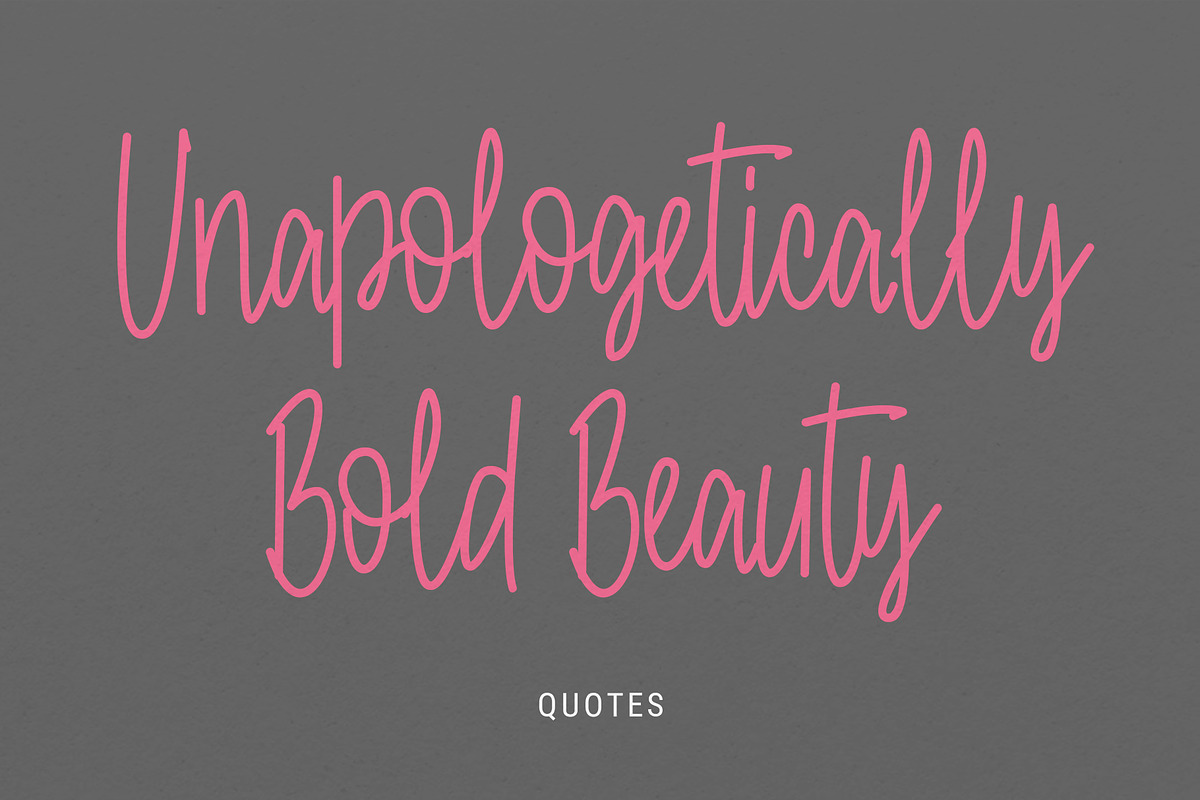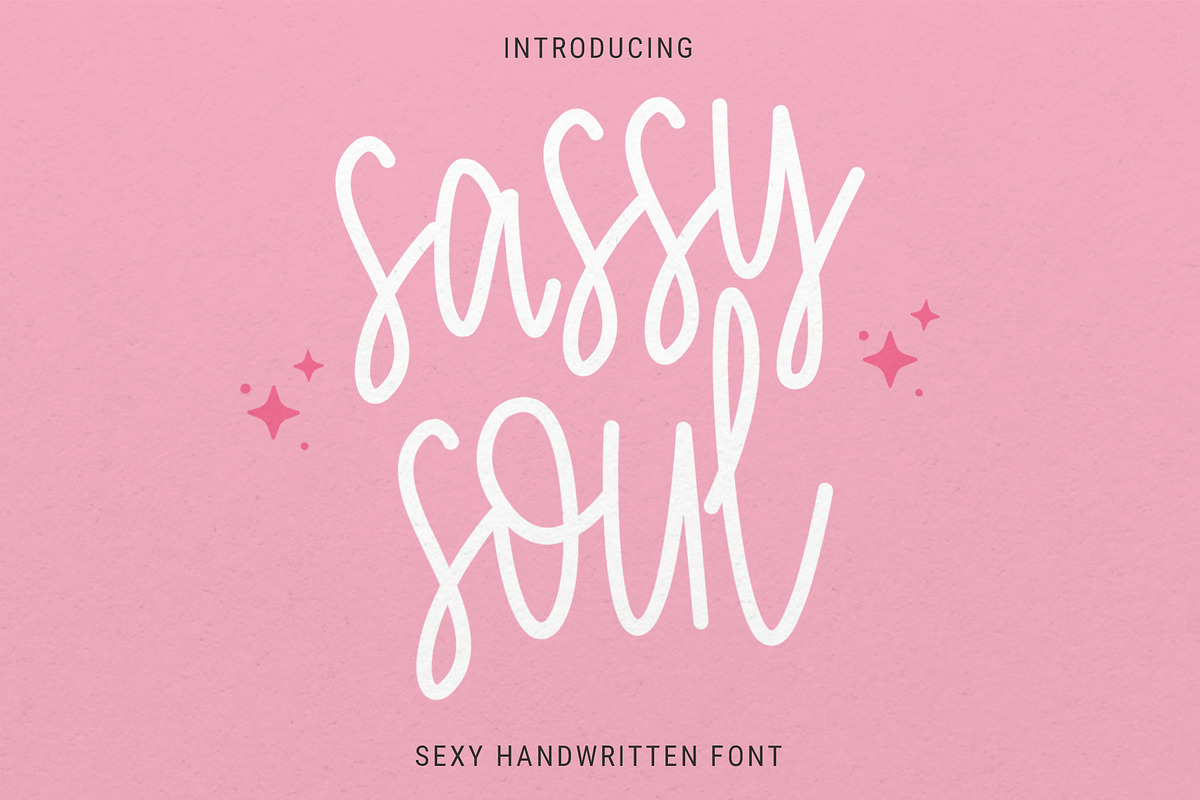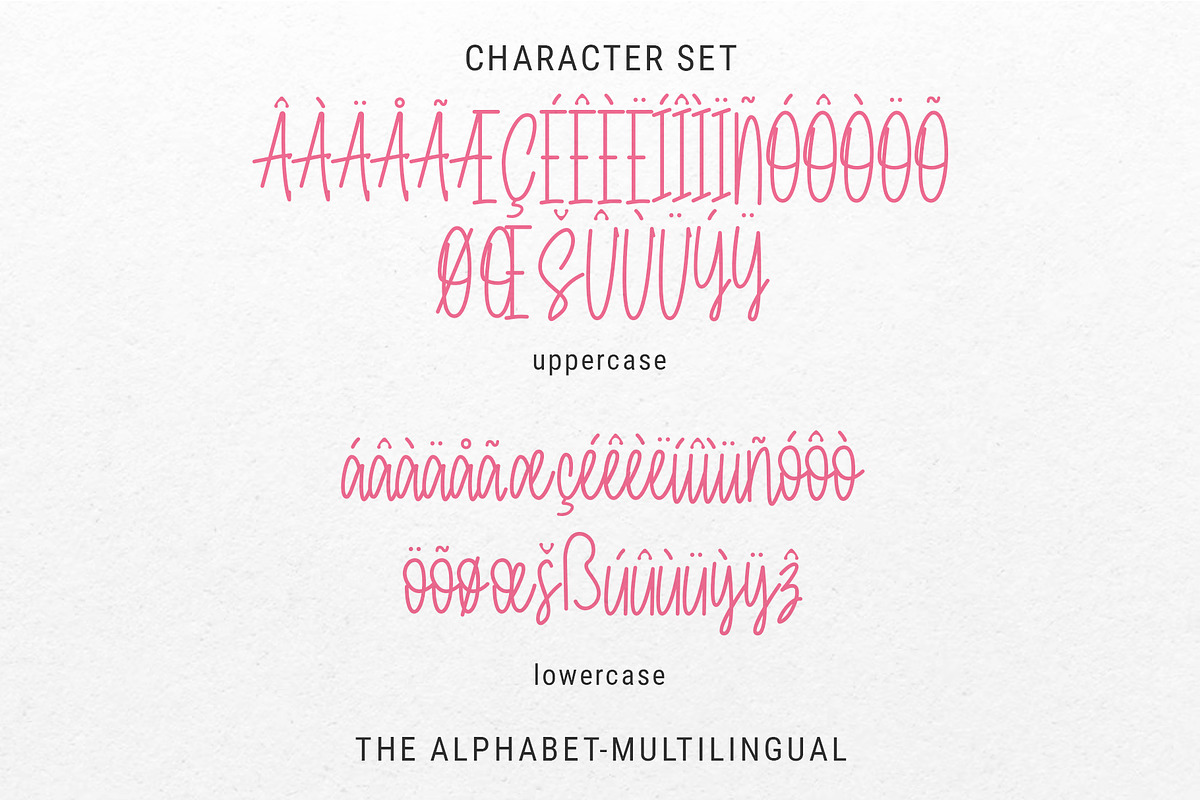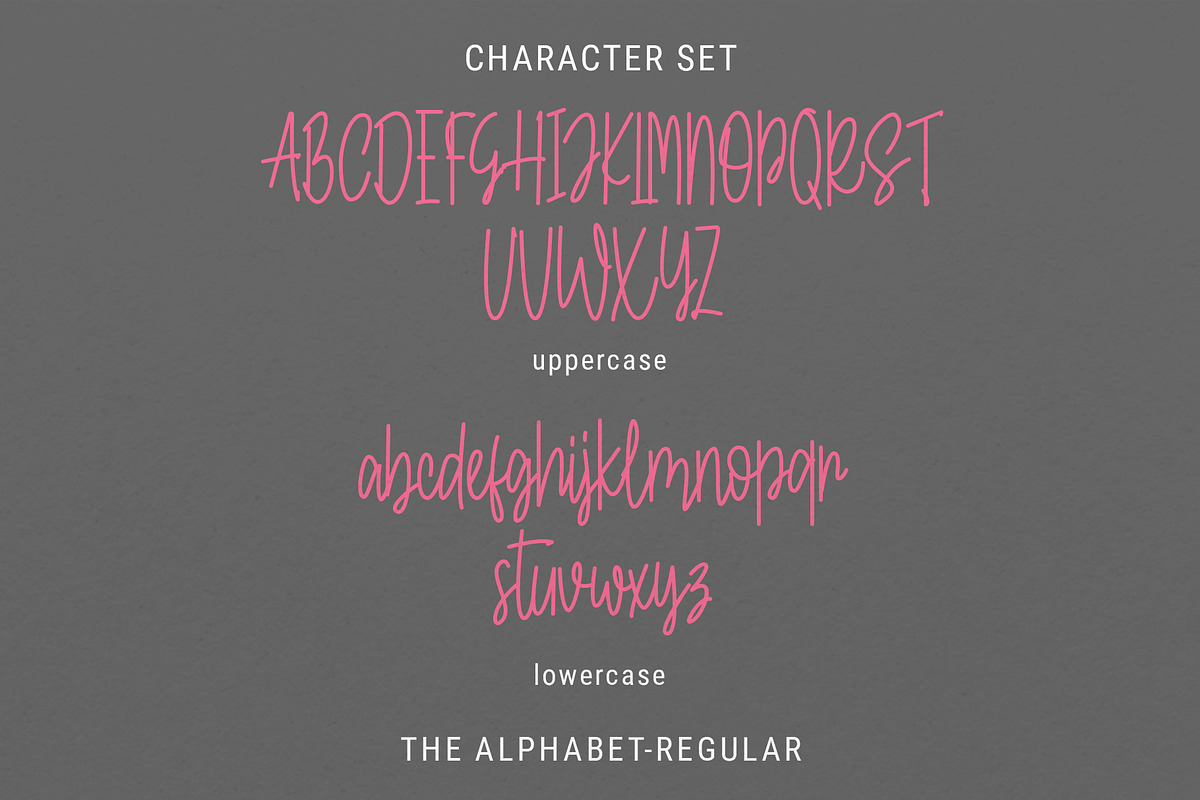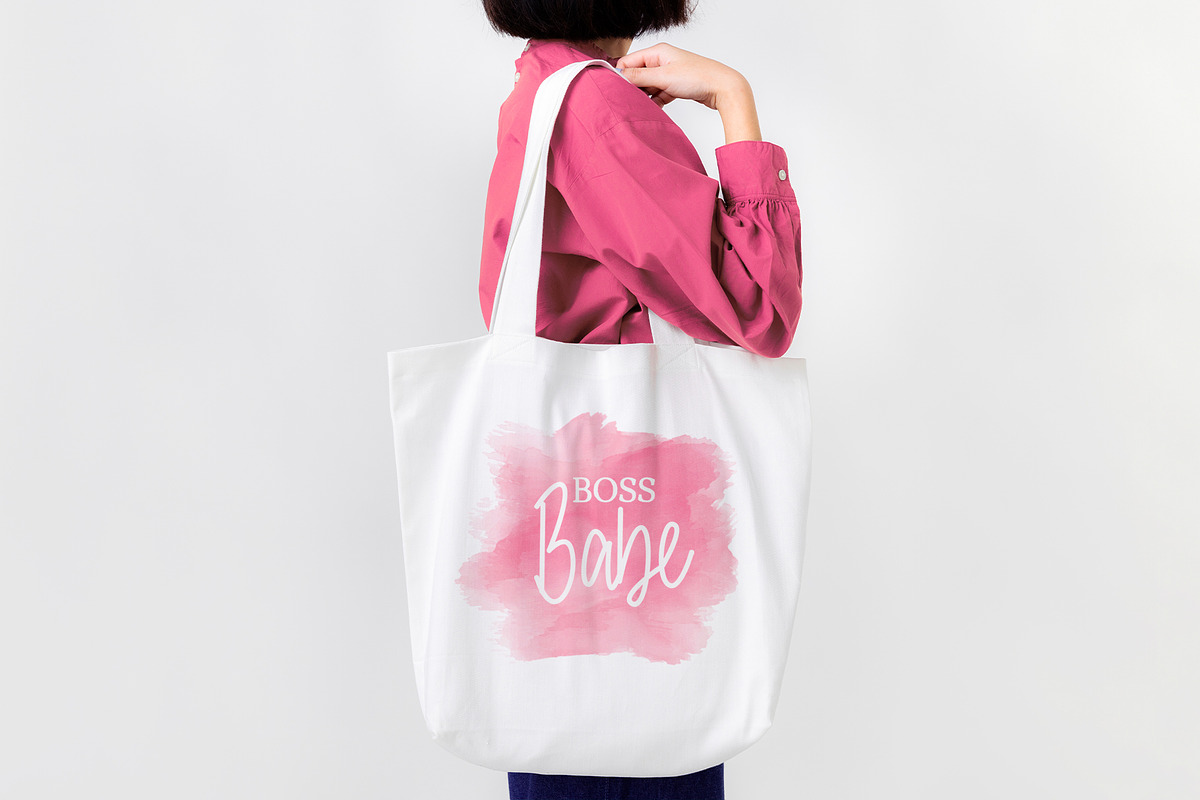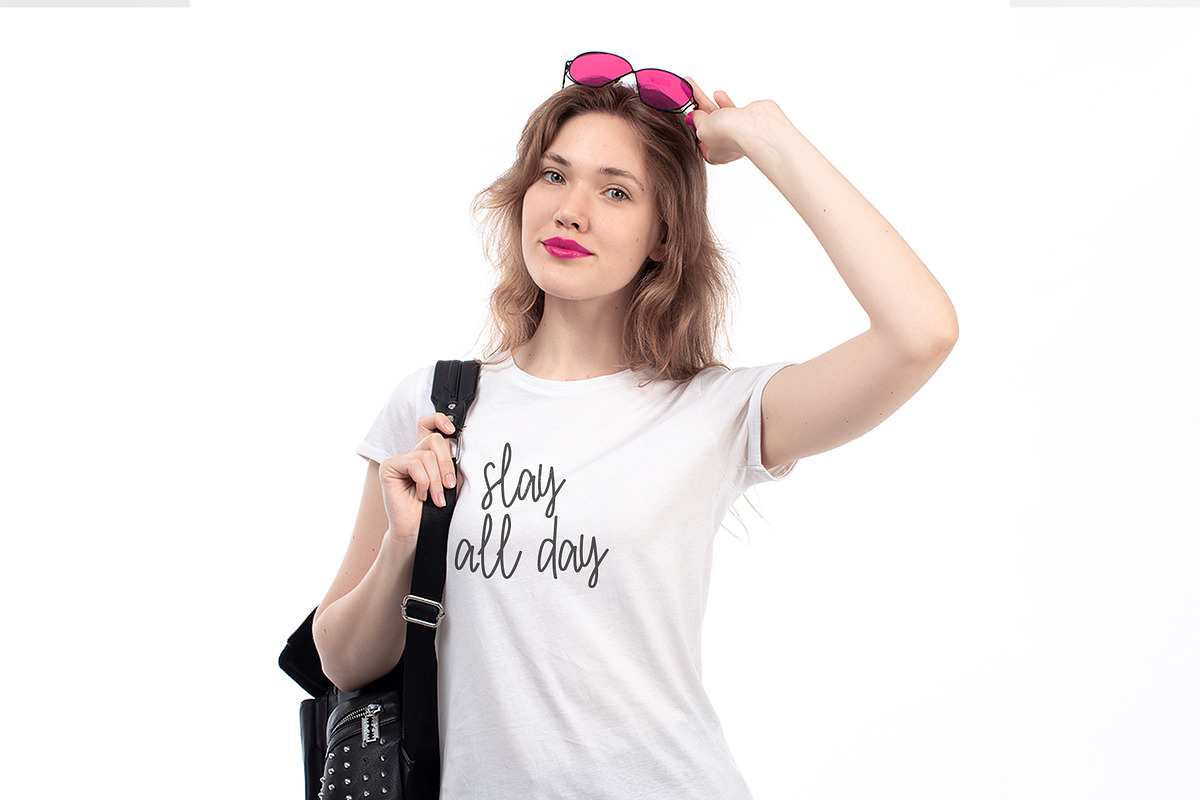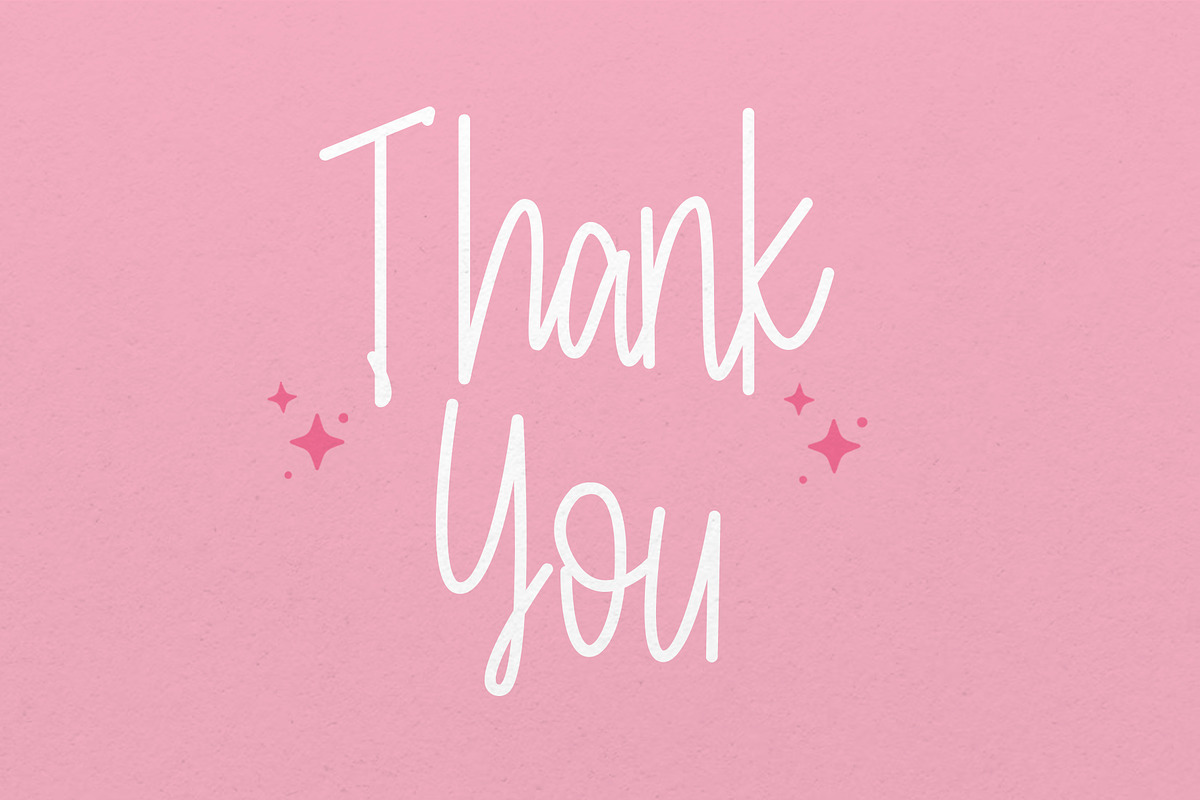
Sassy Soul - Script Sexy Handwritten
Sassy Soul is a stunning font product that exudes sensuality and sophistication. Its script-style, sexy handwritten font is perfect for fashion, beauty, and lifestyle projects that require a touch of elegance and femininity. The curves and loops of each letter are carefully crafted to create a fluid, natural flow that mimics the look of a hand-drawn signature.
Sassy Soul's unique style is both playful and glamorous, making it an excellent choice for branding, invitations, and other high-end projects. Overall, Sassy Soul is a bold, eye-catching font that will elevate any design and leave a lasting impression on the viewer.